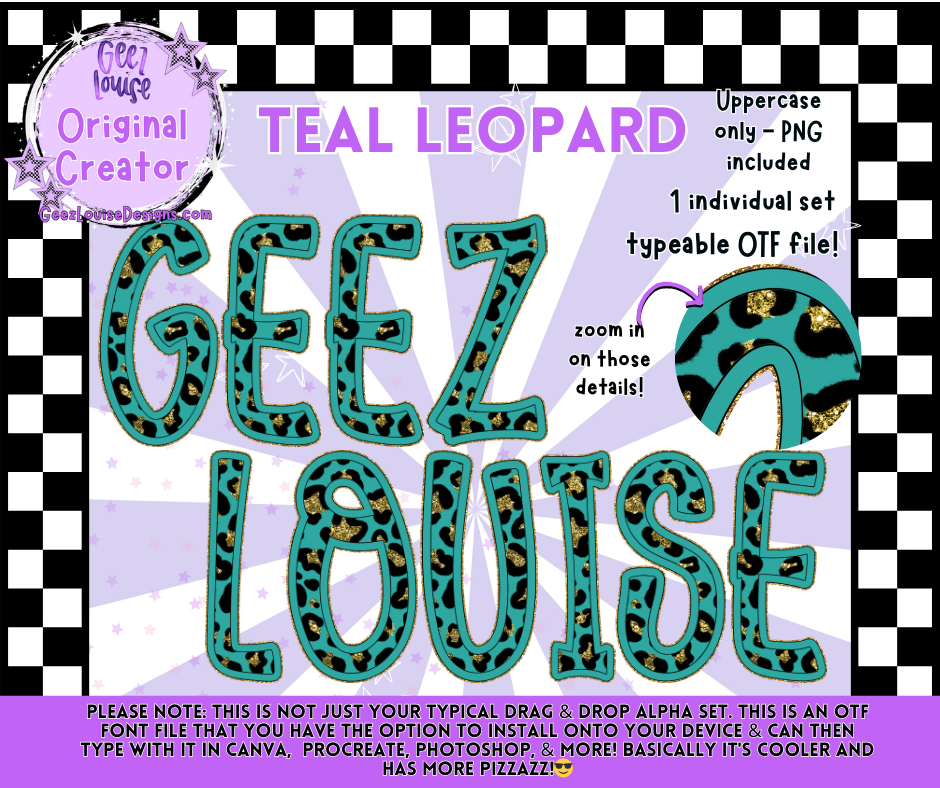
Leopard print, but make it teal and unhinged. This font is for the creators who want their type to pounce. Bold uppercase letters, drenched in teal leopard print and outlined in black—ready to headline your next drop, caption challenge, or merch meltdown.
1 individual set – Teal leopard print with black outline drama
Perfect for alt merch, mascot lore, seasonal chaos, and feed takeovers
Built for layering, remixing, and making your text feel like a main character